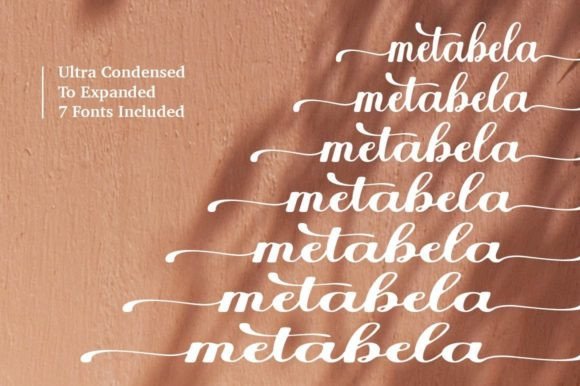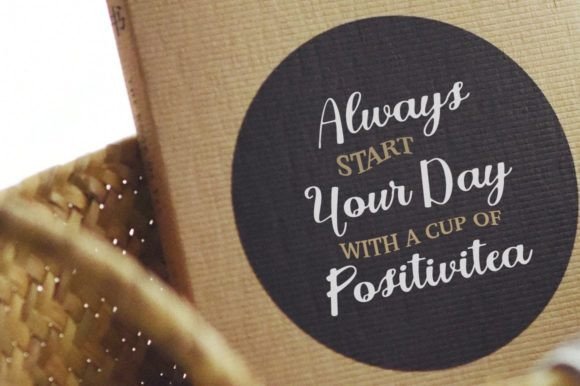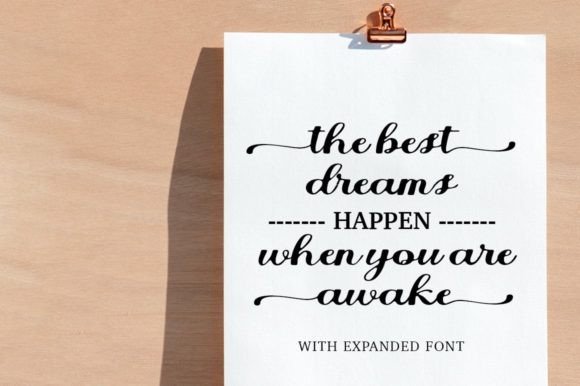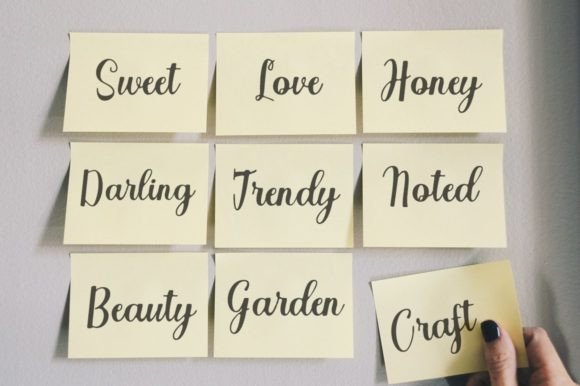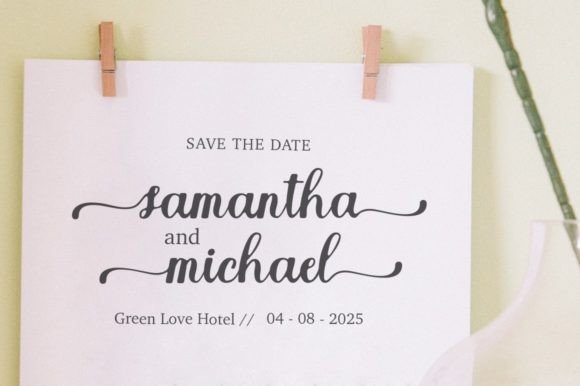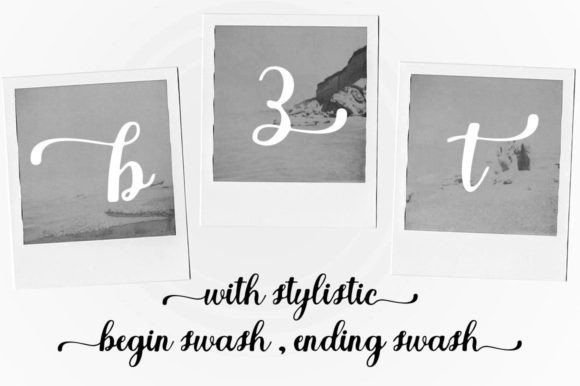
Introduction to Night Time Story Font
Night Time Story is a modern script font family with an authentic touch.
| 👤 Author | Akbartype |
This font is perfectly made for logos, and various other formal projects such as invitations, labels, logos, magazines, books, greeting/wedding cards, packaging, fashion, make-up, stationery, novels, labels, or any type of advertising .
Key Features of Night Time Story Font